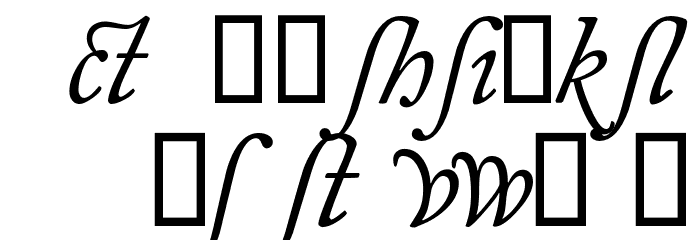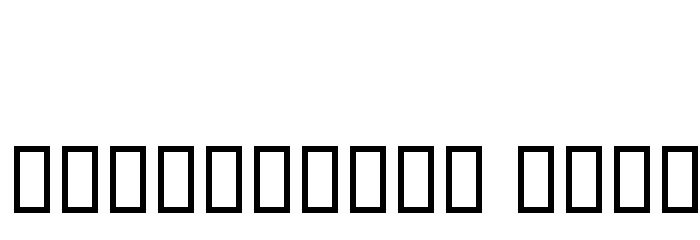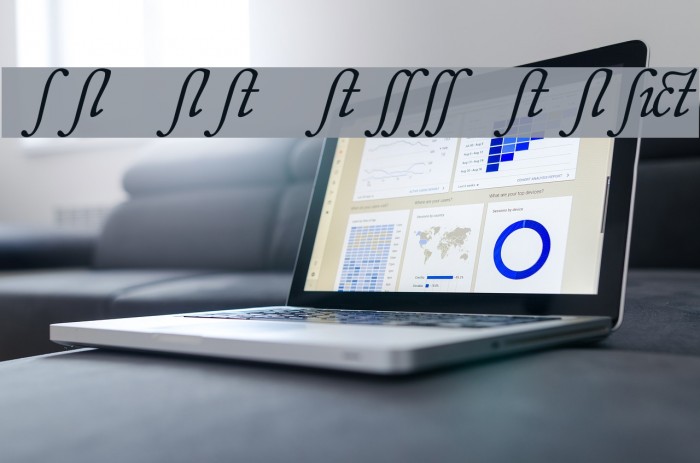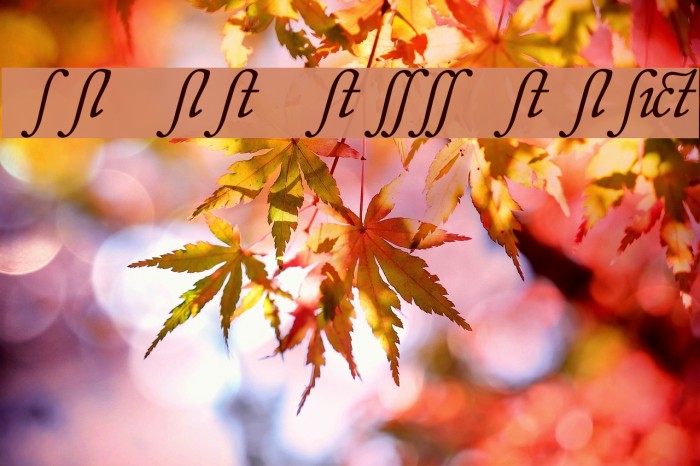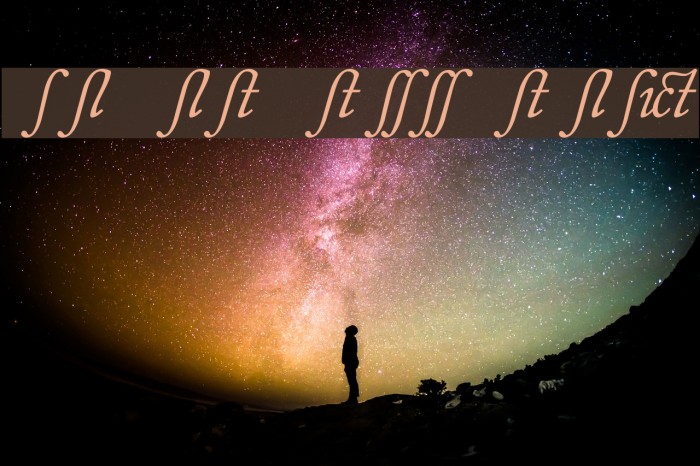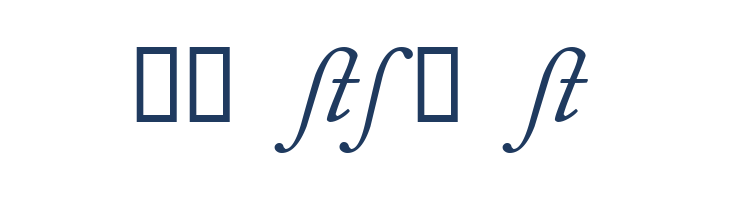
CaslonAlternateSSK Italic Font
This font features a classic and elegant italic style with a distinct slant, offering a sophisticated and timeless appearance. The characters are gracefully curved with a moderate stroke contrast, giving it a refined and traditional look. The serifs are subtle yet pronounced, enhancing the readability and adding a touch of formality. The overall design is reminiscent of historical typefaces, making it suitable for projects that require a touch of elegance and tradition. The spacing between characters is normal, ensuring readability while maintaining its classic aesthetic.
A classic and elegant italic font with moderate contrast and subtle serifs.
- Proposed Projects: Ideal for formal invitations, historical documents, book covers, and elegant branding materials.
- Overall Style: Classic